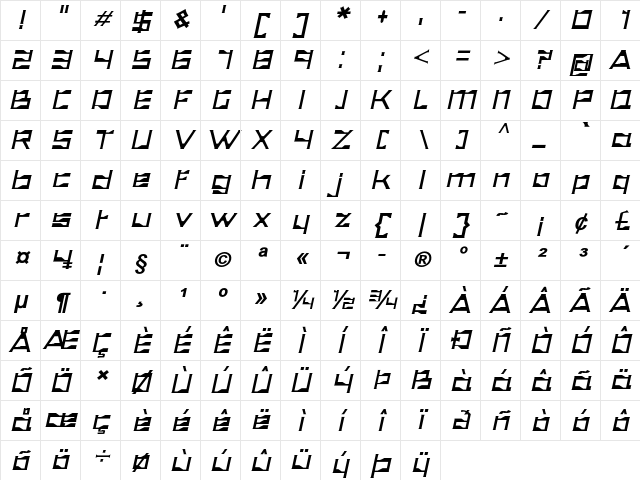
Executris Bold Italic
Executris Family
Executris Bold Italic
Complete Executris Bold Italic glyph index. Displaying only characters natively supported by Executris Bold Italic font.
Design Context for Executris
Executris is a composed and adaptable typeface that performs quietly and consistently across a wide range of design contexts. The slanted form adds forward momentum and visual energy. Its bold stroke weight gives it real presence on the page.
Pro Tip: Use Executris for emphasis, pull quotes, and subheadings where its slanted energy can add rhythm to the layout.